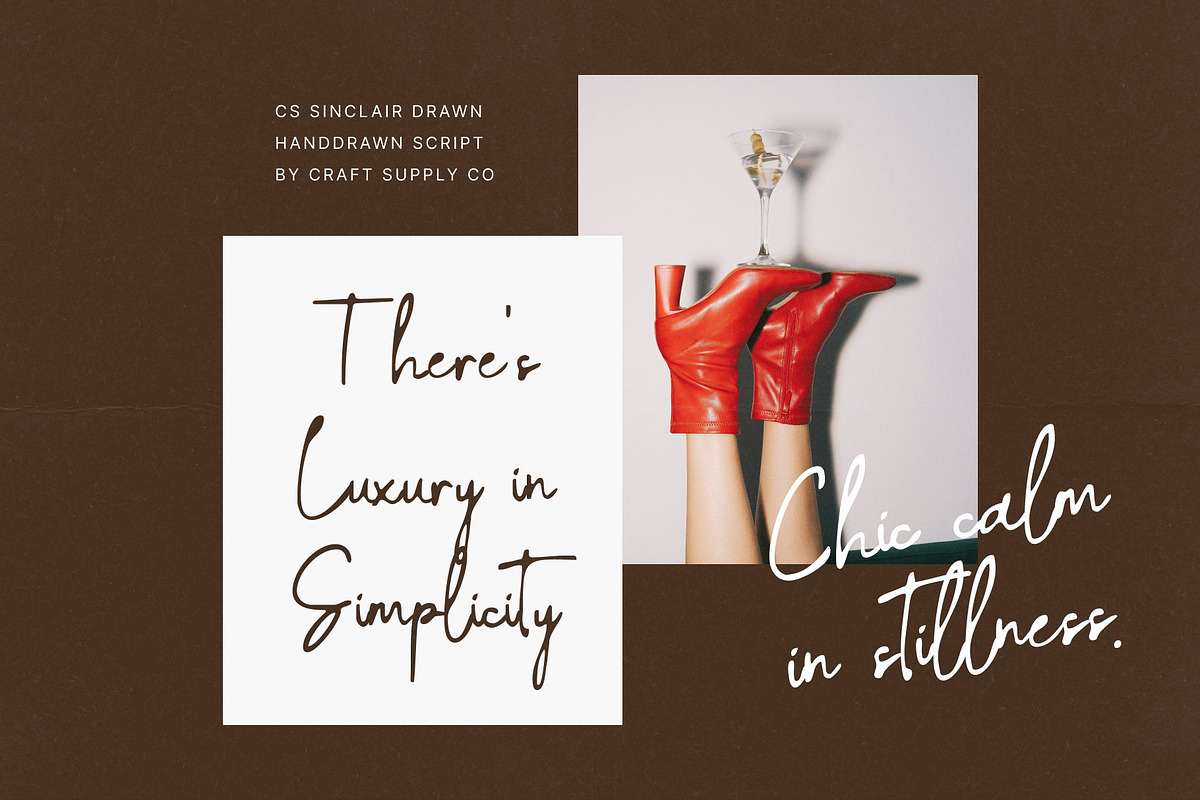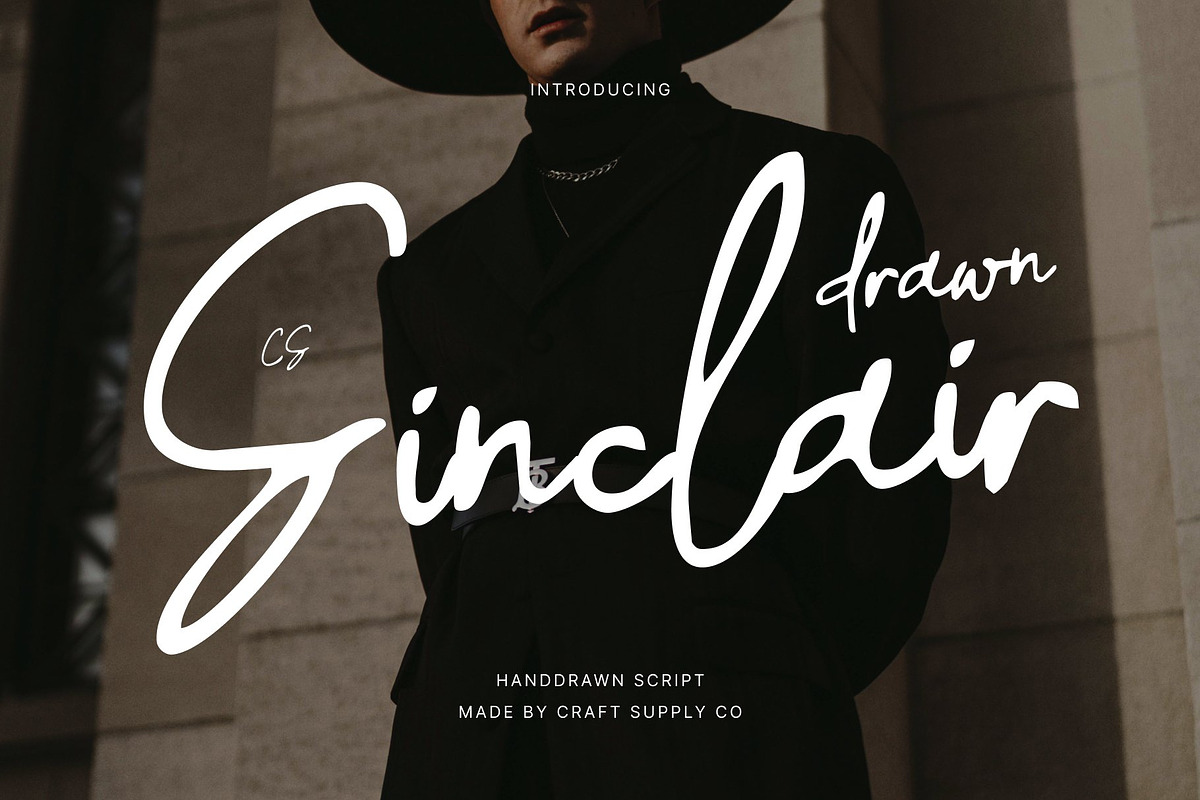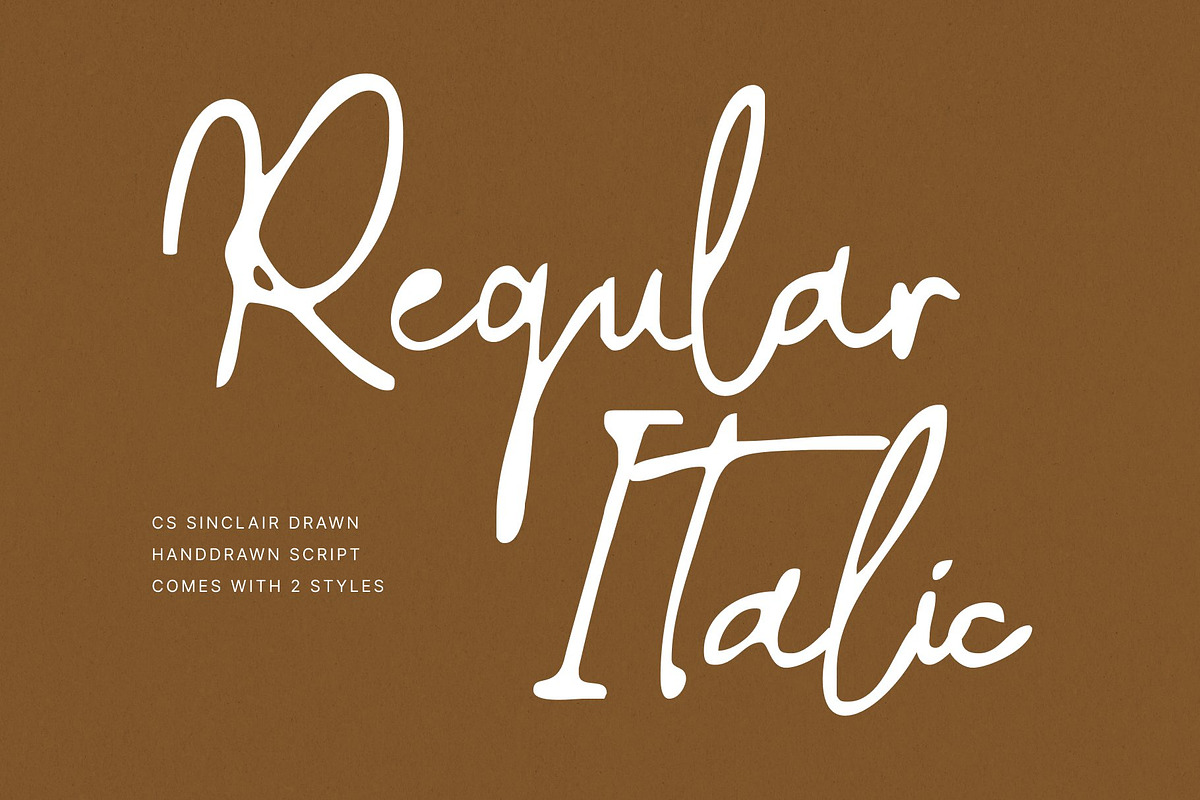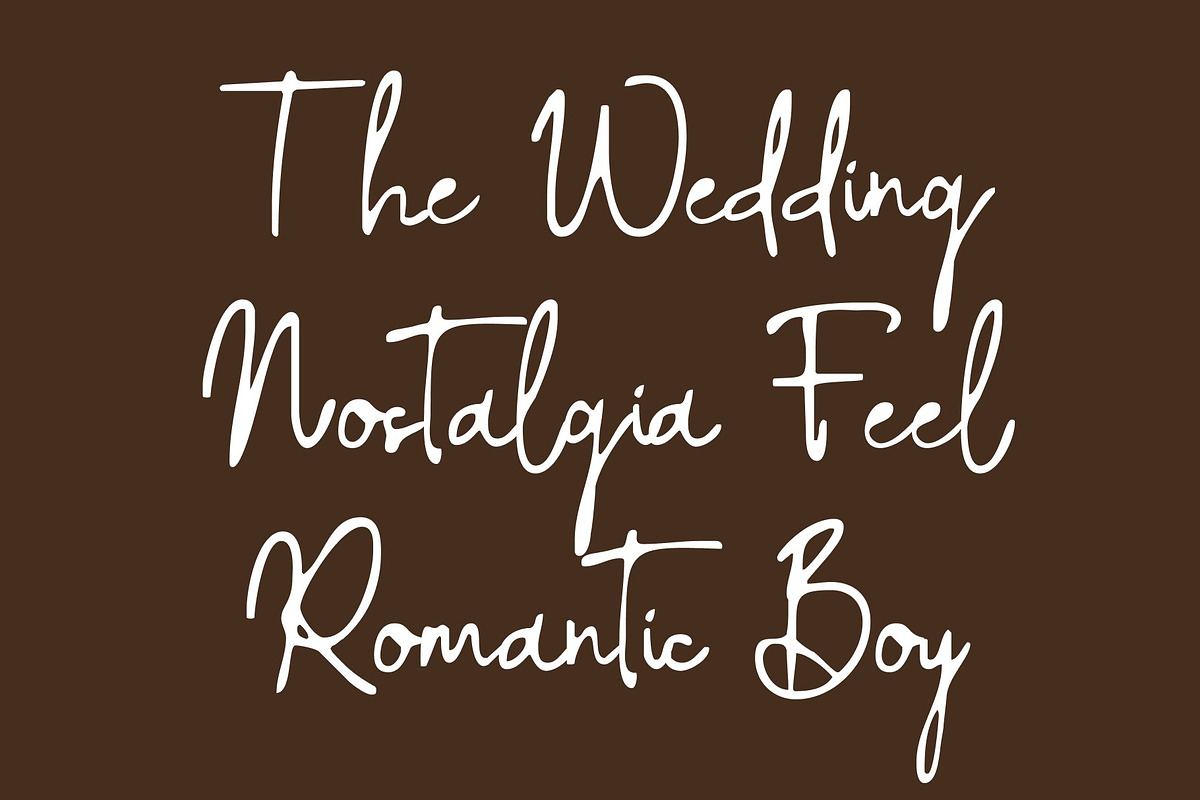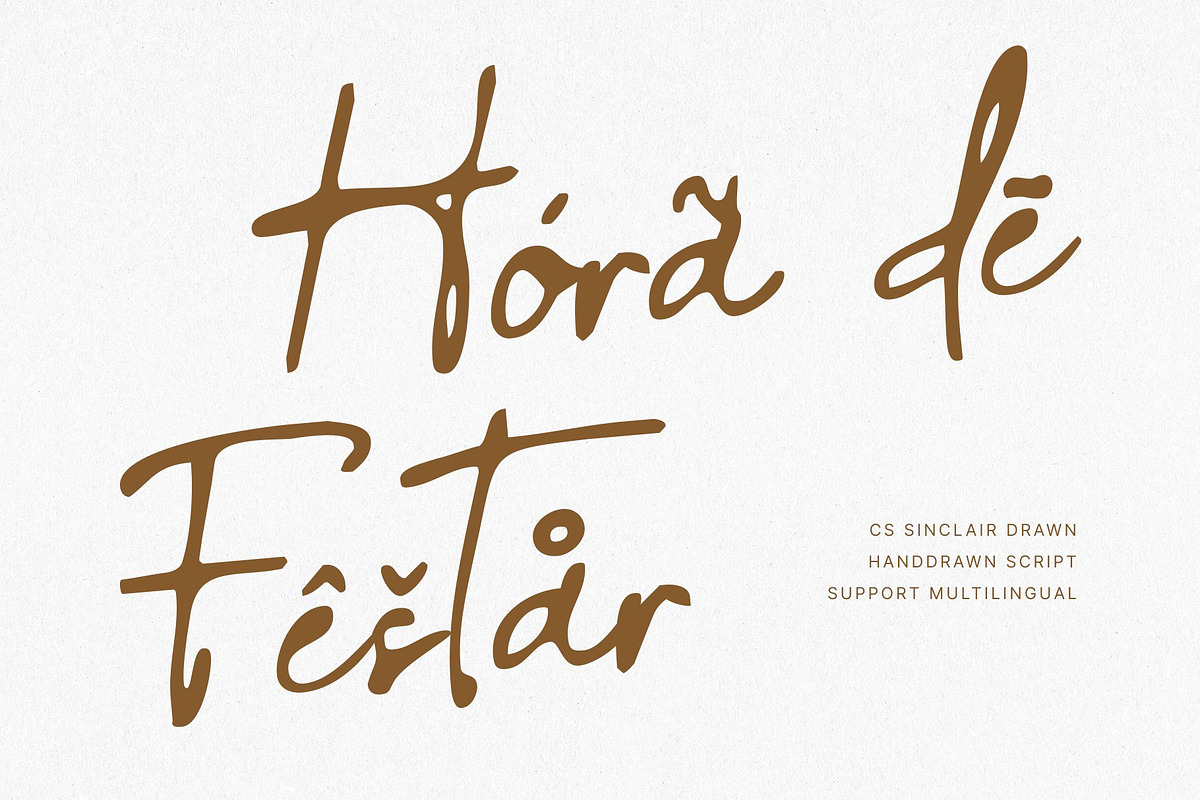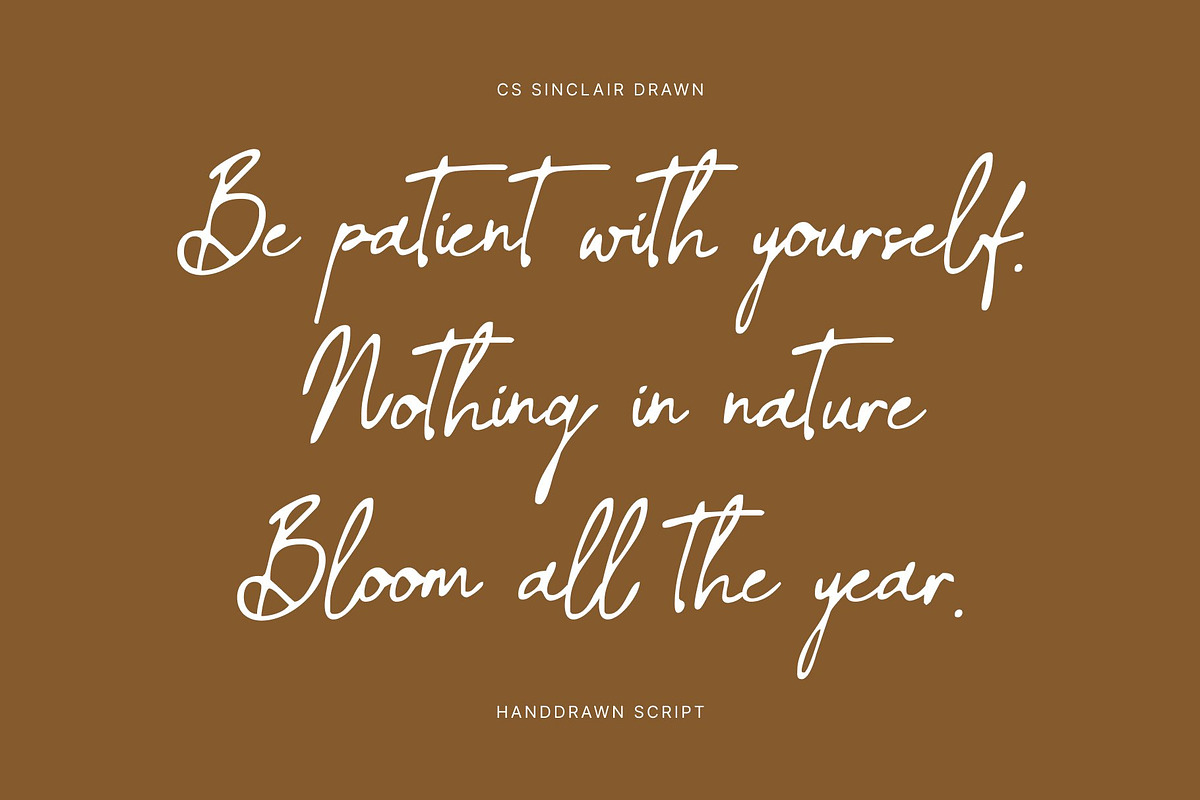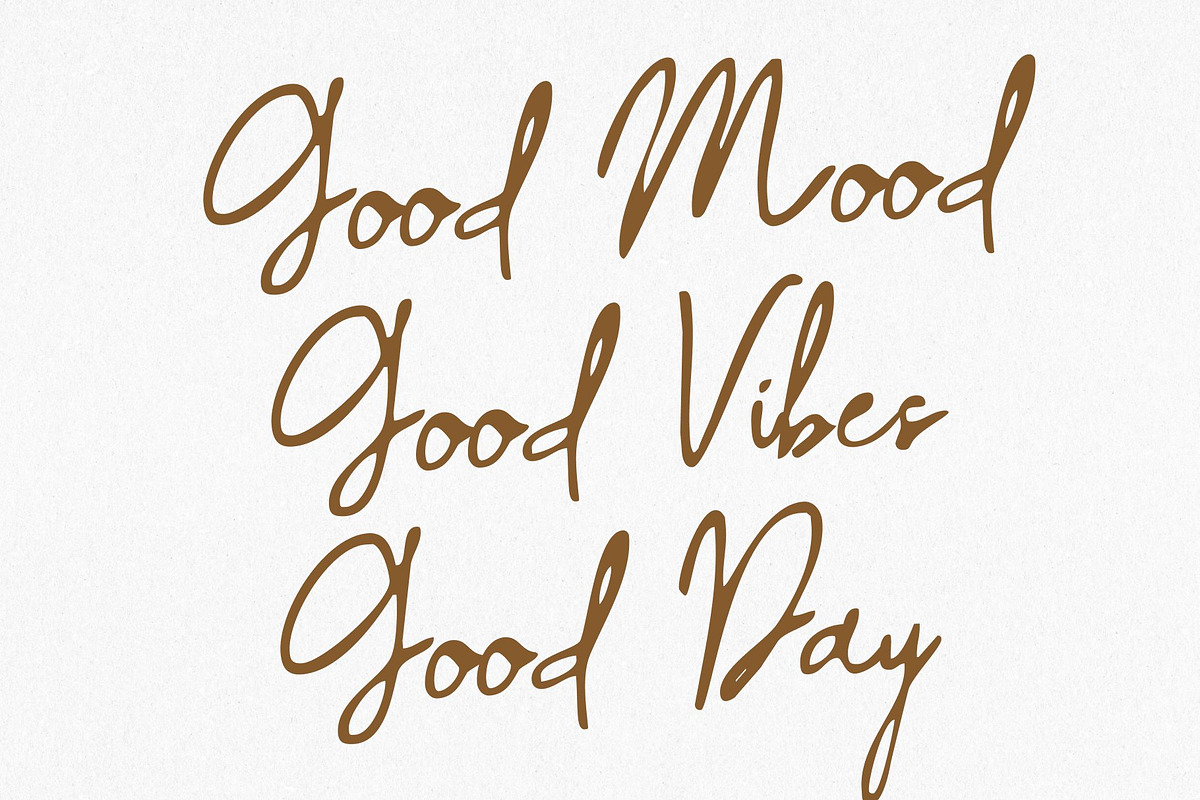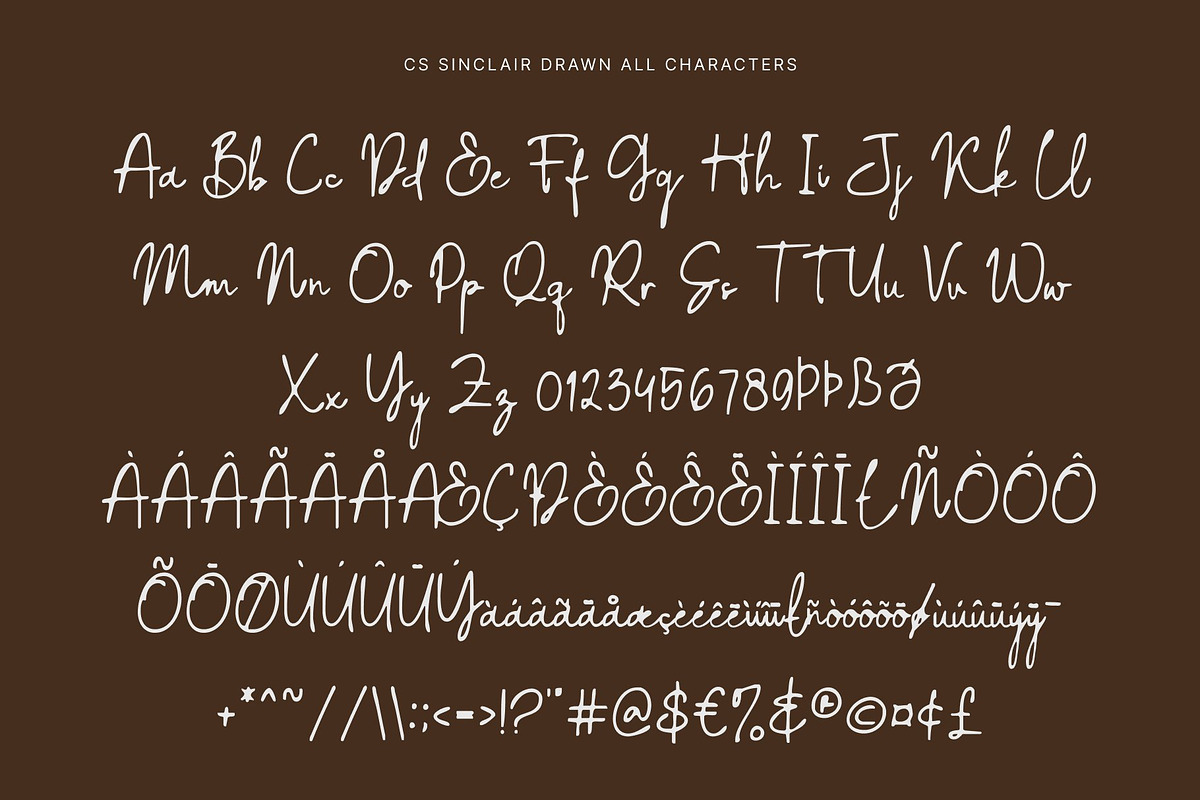
CS Sinclair Drawn
CS Sinclair Drawn – Handwritten Script Font with Soft Expressive Flow
Soft Letterforms Inspired by Natural Writing This is a handwritten script font that captures the gentle charm of natural pen strokes. Its smooth curves and relaxed connections create an effortless, flowing rhythm that feels organic and human. Enhanced with a drawn texture, each character reflects the subtle variations of real handwriting, giving the font a soft, expressive personality with visible warmth and character.
Expressive Movement with Warm Authenticity Designed to feel sincere and emotionally engaging, this font delivers expressive movement through balanced strokes and fluid motion. The hand-drawn effect adds depth and realism, allowing slight inconsistencies to shine as part of its charm. This natural imperfection makes the font feel alive, personal, and genuinely handcrafted.
Casual Elegance with Versatile Appeal This font balances casual handwritten charm with refined readability. Its gentle script style works beautifully alongside clean layouts or minimal graphics, adding softness and elegance without overwhelming the composition. The drawn finish enhances its artistic feel while maintaining clarity across various sizes and applications.
Perfect for Personal Branding, Quotes, and Invitations This font is ideal for personal branding, quotes, casual invitations, greeting cards, and lifestyle visuals. It brings a heartfelt, human touch to logos, social media content, stationery, and editorial accents. With this font, every design feels warm, expressive, and naturally elegant, carrying the beauty of handcrafted writing into modern visual storytelling.